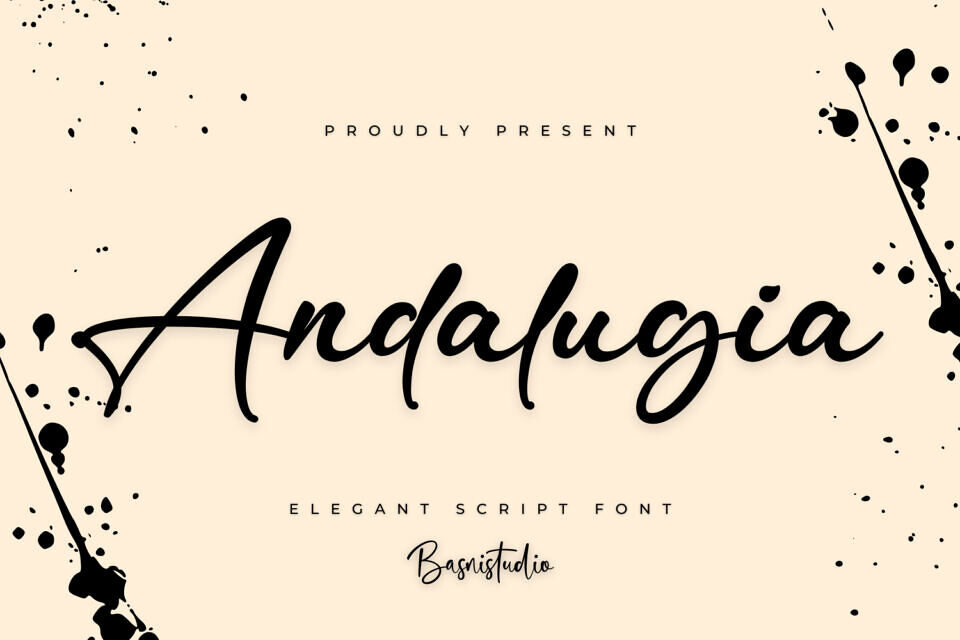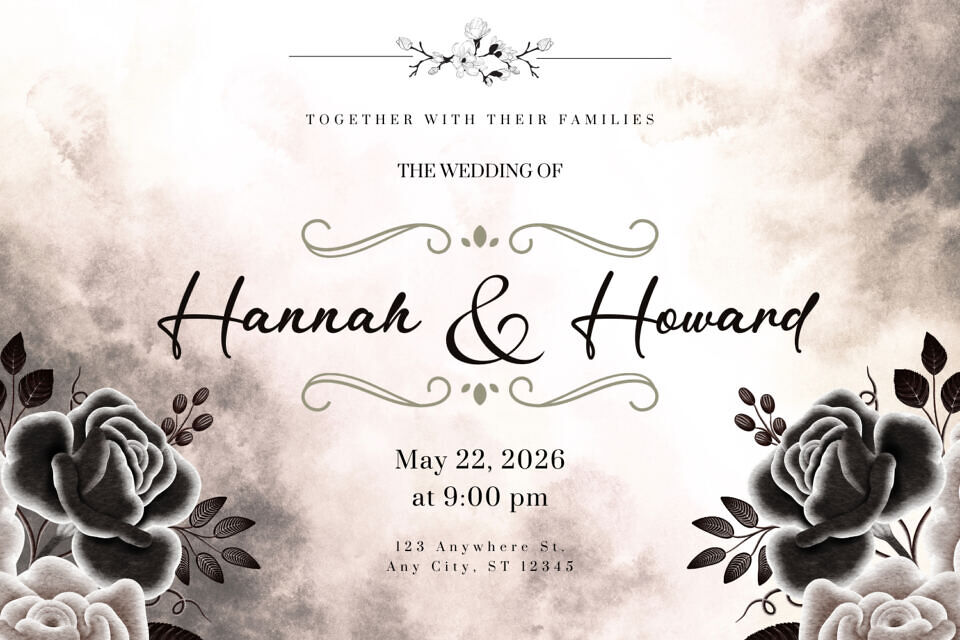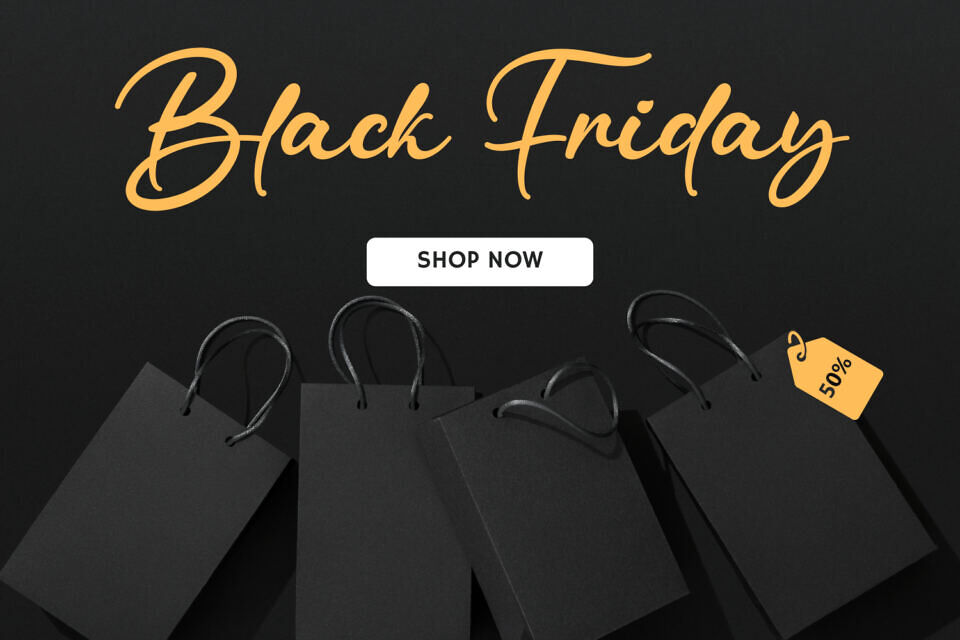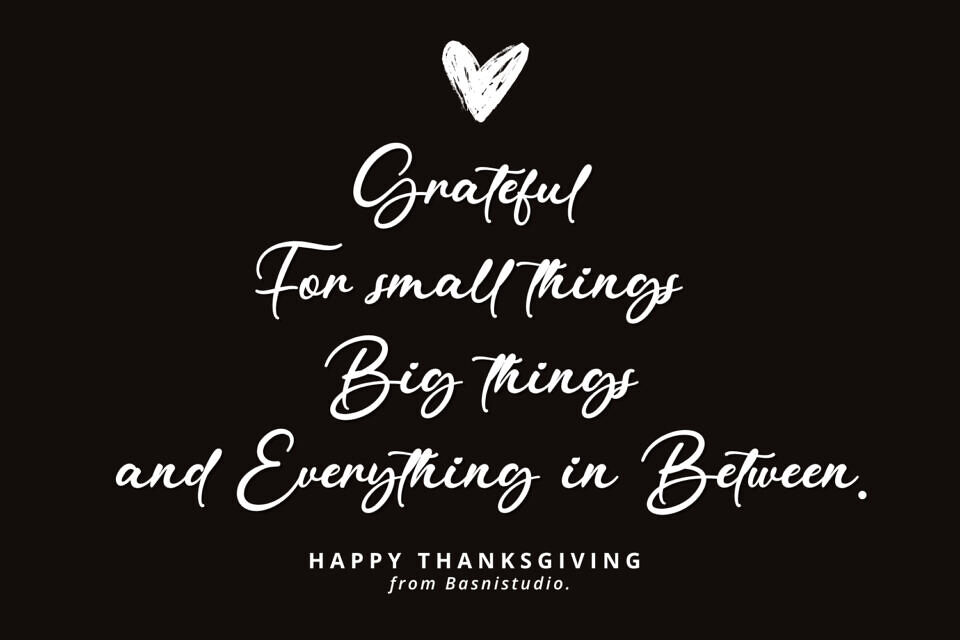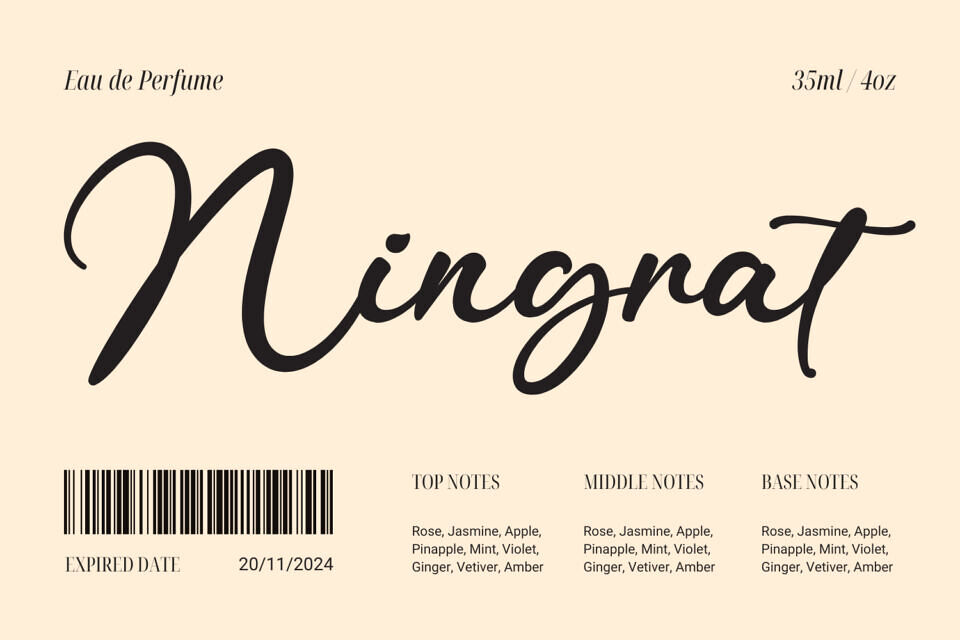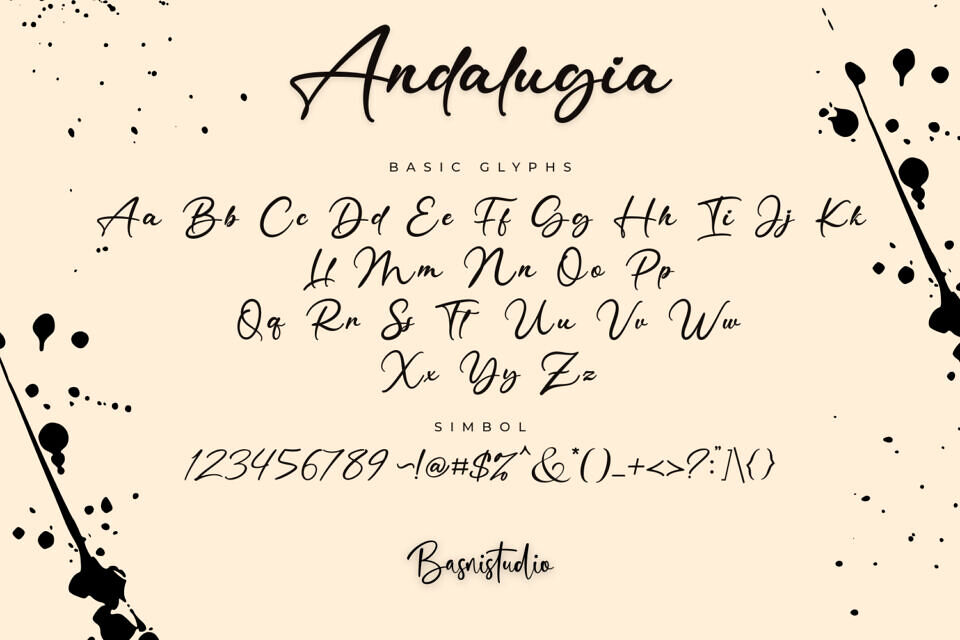
Andalugia Font
Looking for a font that brings warmth, personality, and authenticity to your projects? Andalugia is a Elegant Script Font  that adds a elegant, versatile touch to everything from branding and social media to invitations and packaging.
Andalugia is Elegant & Versatile. Perfect for logos, quotes, greeting cards, and more. Whether you’re building a powerful brand identity or crafting a standout logo, Andalugia is a Elegant Script Font.